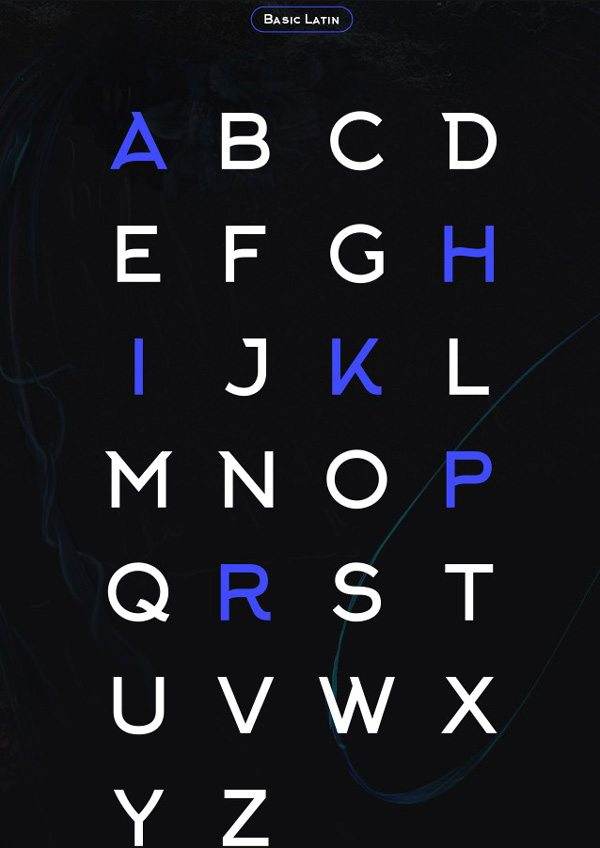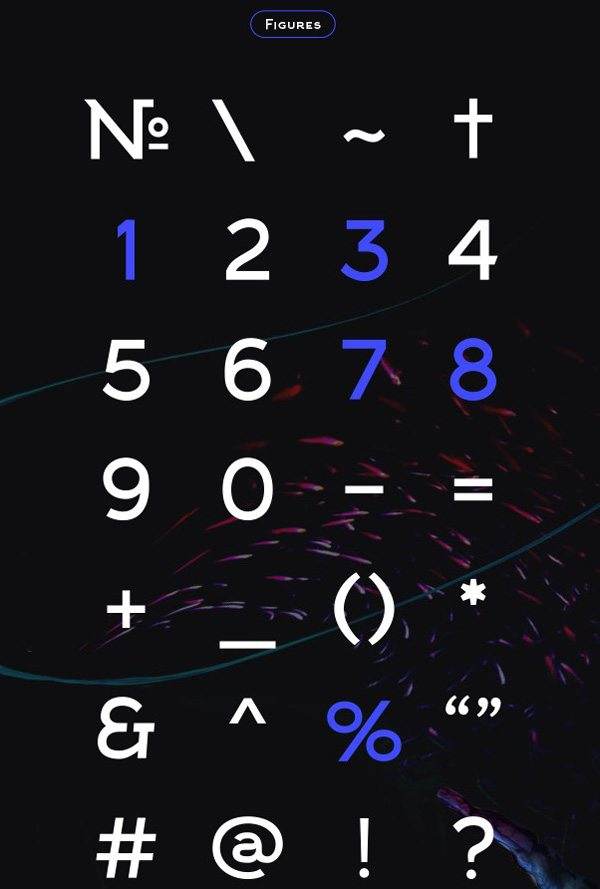
Fonts Free Font Of The Day #133 – Arkhip Font by Yayang Apryana March 9, 2015 Arkhip Font The font is a free font created with a Russian soul and 100% FREE. Designed by Design Klimov. Download